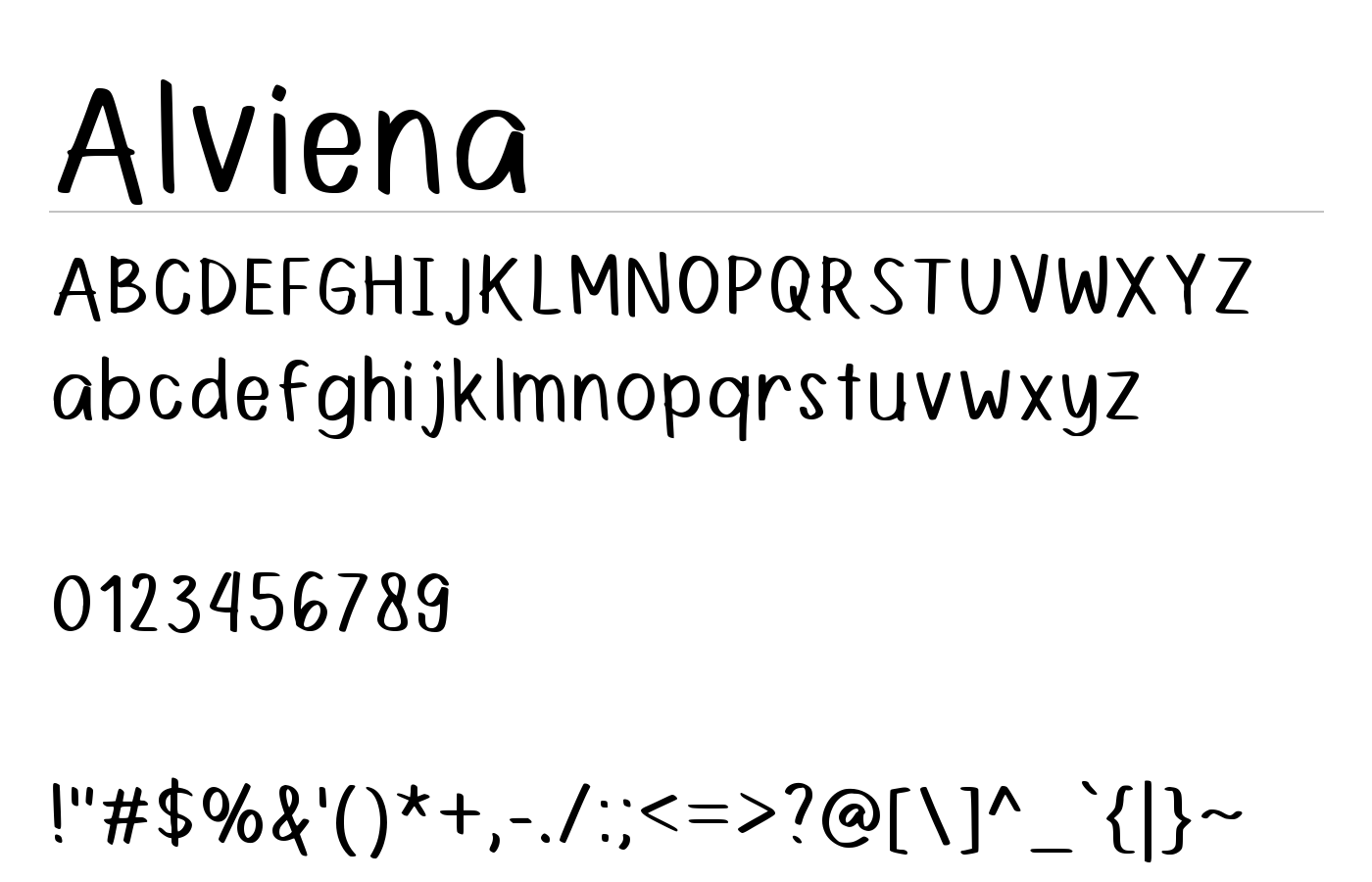
Alviena is a playful and lively sans serif font with a hand-drawn, casual feel. Its upright, moderately narrow letterforms and friendly curves make it perfect for projects that want to convey approachability and creativity. This font works well in informal branding, children’s materials, and any design that benefits from a warm, personal touch.
Alviena Font
About Alviena Font
| Font family | Alviena Font |
| Designer | Nur Aisyah Amalia |